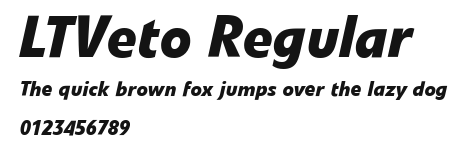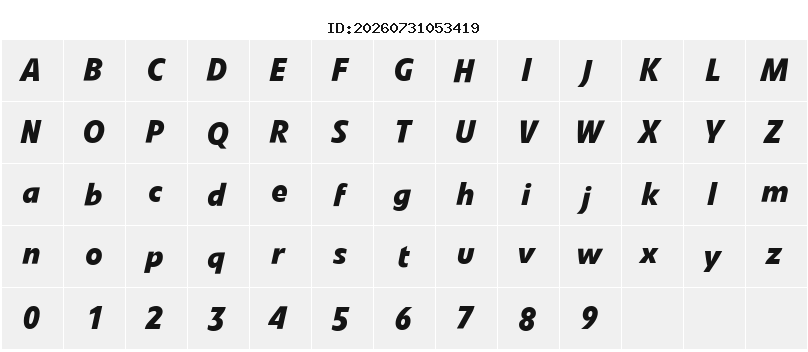
• Font Name: LTVeto Regular
• Designer: Marco Ganz
About LTVeto Regular.ttf
LTVeto Regular.ttf is a modern, elegant sans-serif font designed for ultimate readability and visual harmony. Perfect for branding, headlines, web design, and print materials.